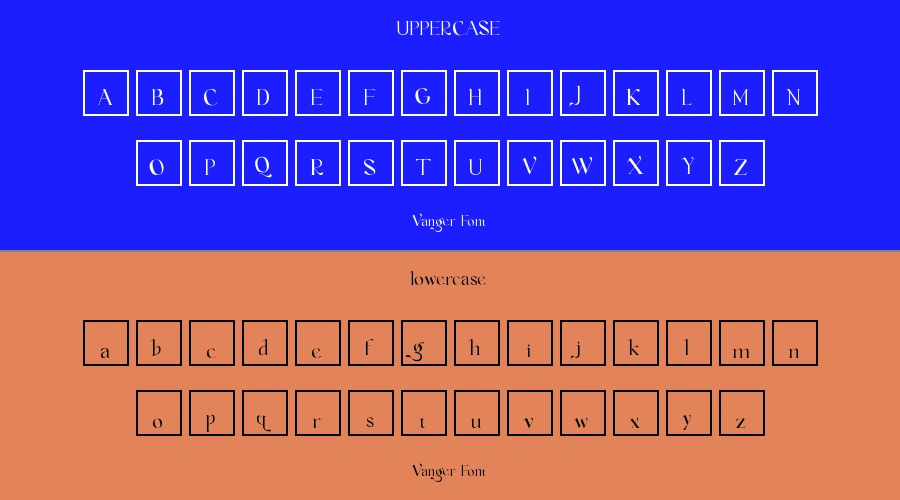
About Vanger Font
Vanger Font embodies typographic excellence through its masterful combination of consistent rhythm and enduring style. Created for scientific journals, this typeface delivers exceptional expressiveness and system compatibility across all applications. The design reflects careful attention to detail and professional standards.
Advanced capabilities include distinctive transitional forms and versatile oldstyle figures, giving designers creative control. When used in running text, Vanger Font exhibits remarkable overlay performance. The harmonious balance between terminal style and historical reference sets this typeface apart.